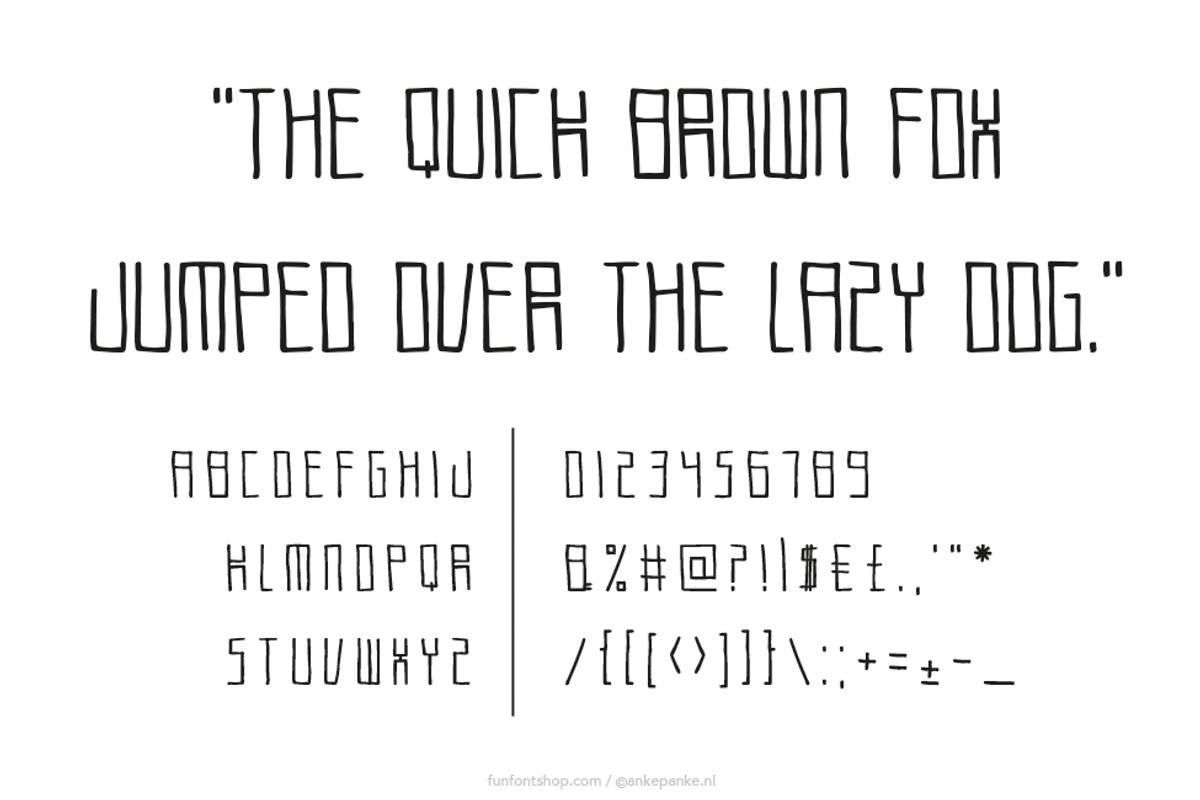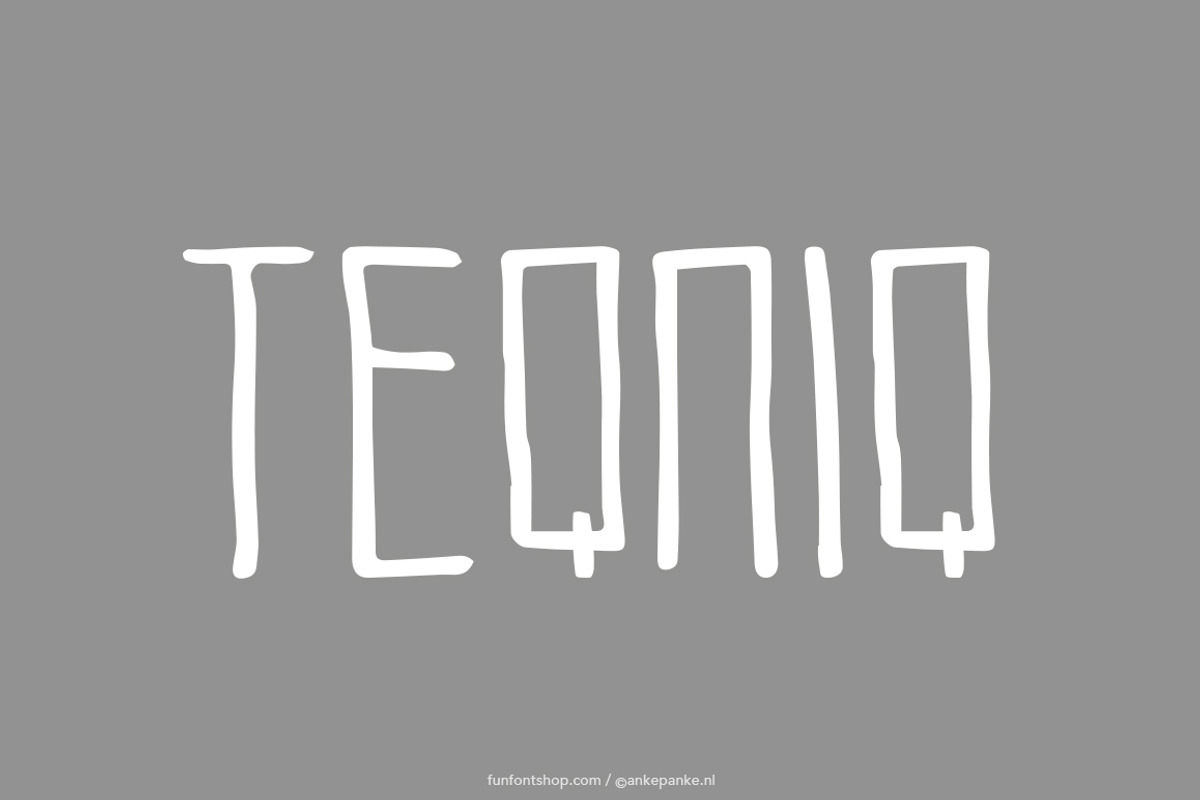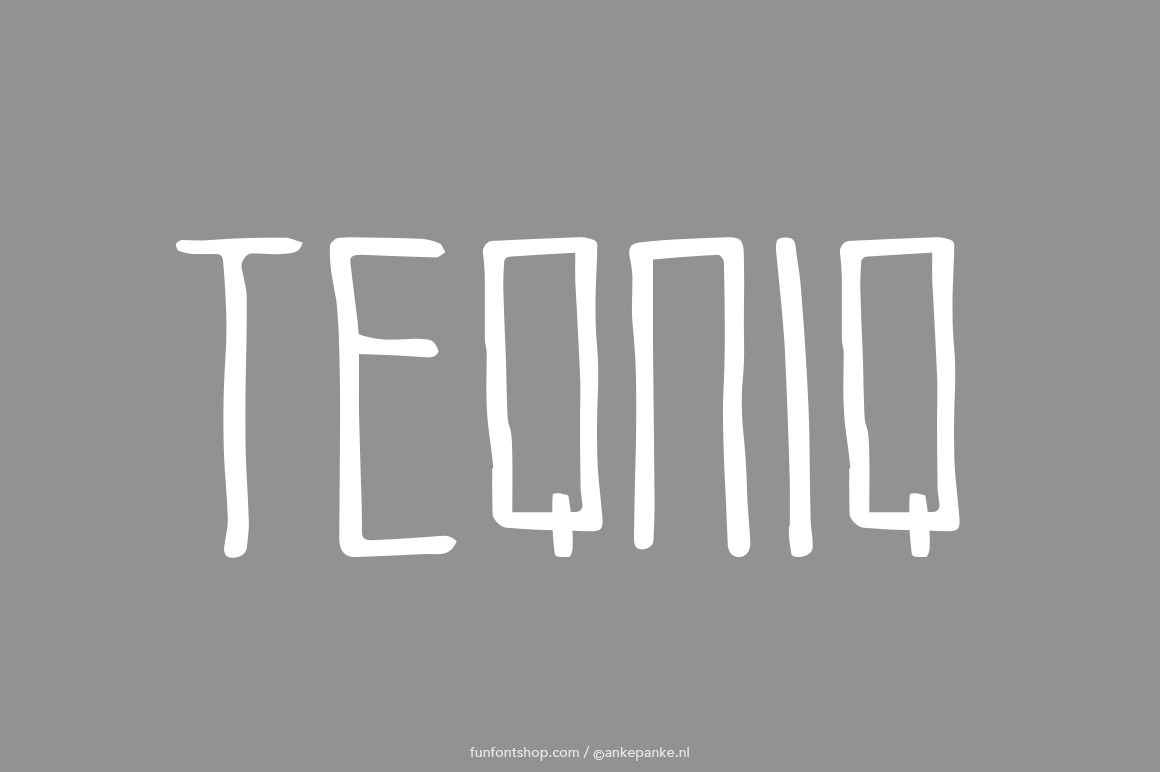
Teqniq handmade Font
The letters of this fun font are rectangle, but not too neat. This font was first draw by hand, scanned, vectorized and converted to a TTF file so you type with it. They have some imperfections, but I believe that adds to the handmade feeling.
- Letters Uppercase and numbers
- Punctuation !?#%&*±+=-_,.:;’"/|£€$@([])